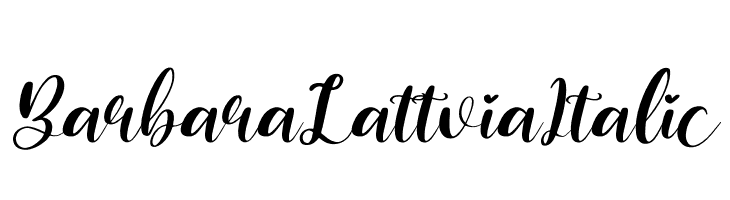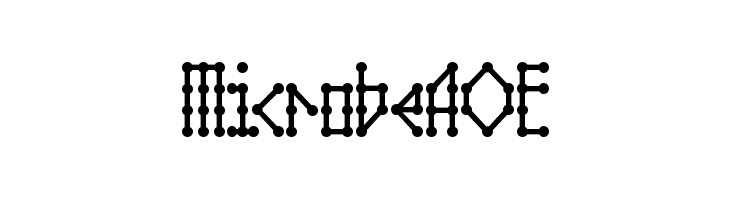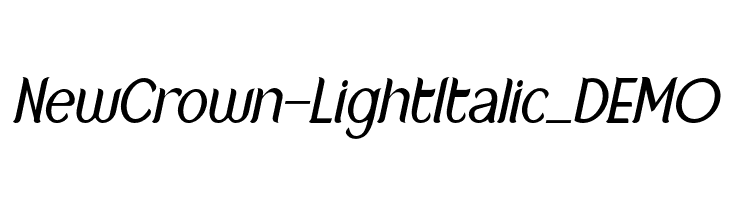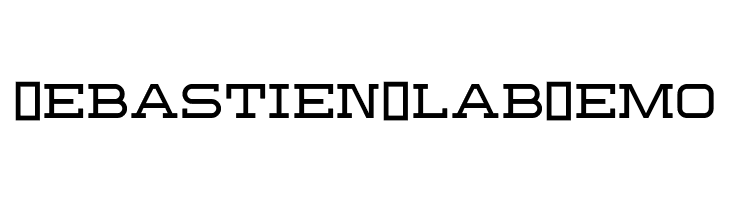
An elegant script font with flowing swashes and intricate details.
A bold, expressive script font with a lively handwritten style.
A bold, playful font with chunky, dynamic letters and a retro vibe.
An elegant script font with flowing, decorative strokes.
A futuristic, circuit-inspired font with geometric precision.
A bold, expressive handwritten font with dynamic brush strokes.
A bold, slanted, and modern font with a strong, impactful presence.
A bold, angular font with a futuristic and dynamic style.
A playful, comic-style font with bold outlines and rounded edges.
A bold, distressed font with a vintage, industrial feel.